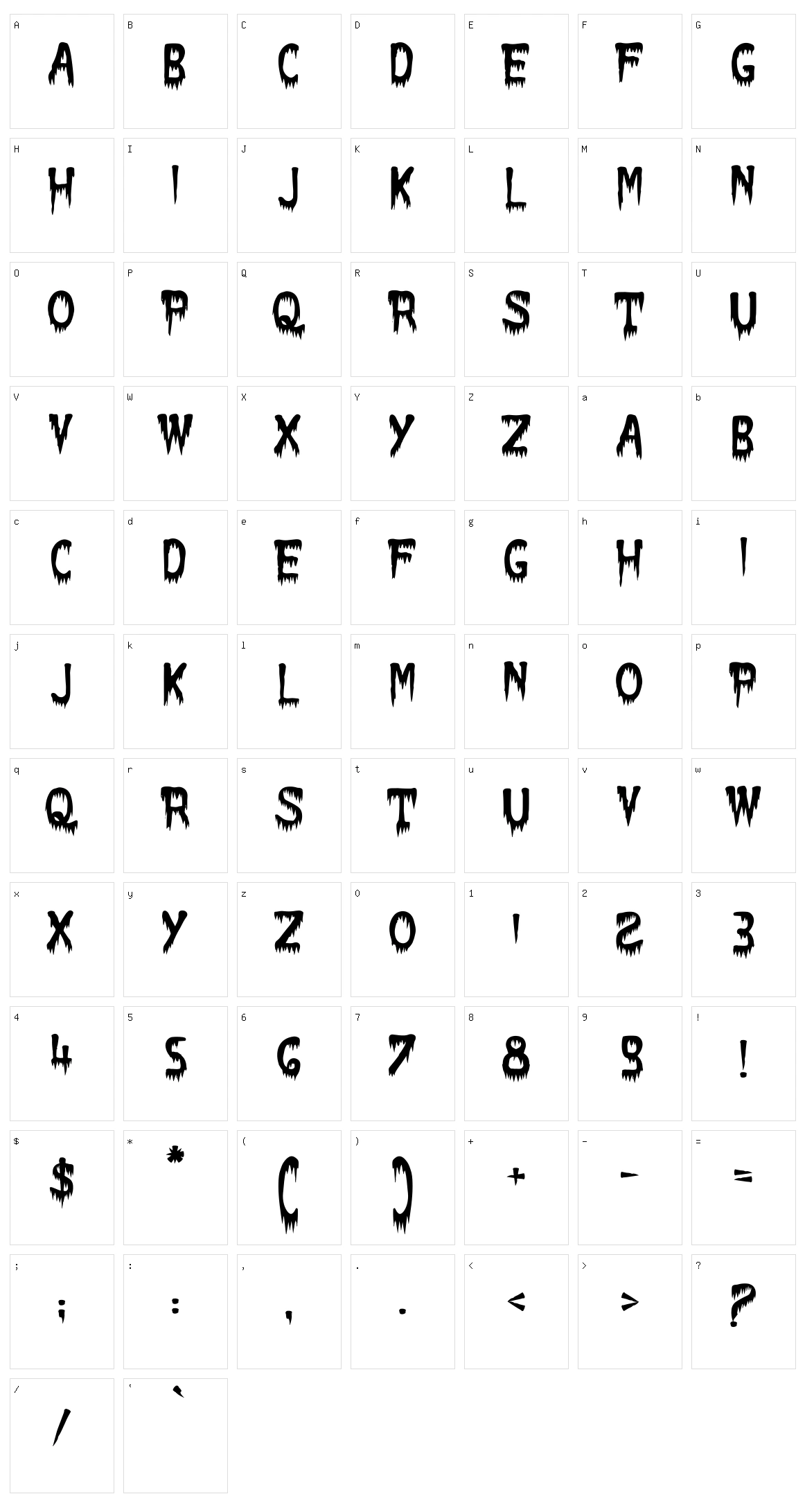
The free font Je Visais Pas Les Couilles is carefully designed by Octotype | Thomas Boucherie, showcasing a thoughtful balance of creativity and usability and falls under the Horror font style. When you download the ZIP file, it contains only 25.44 KB of font files, making it lightweight and quick to download. Please review the license details below to understand permitted usage and distribution rights. If license information is not available, we recommend using this font for personal projects only or contacting the author directly for commercial usage permissions.